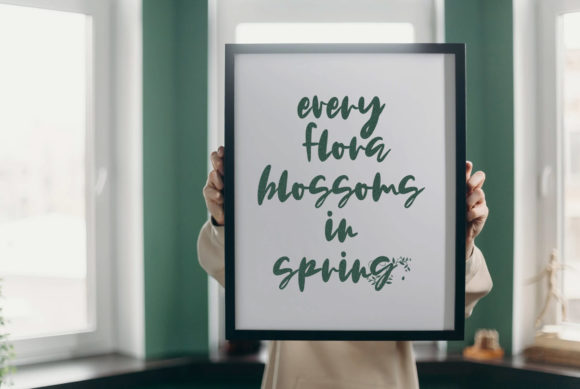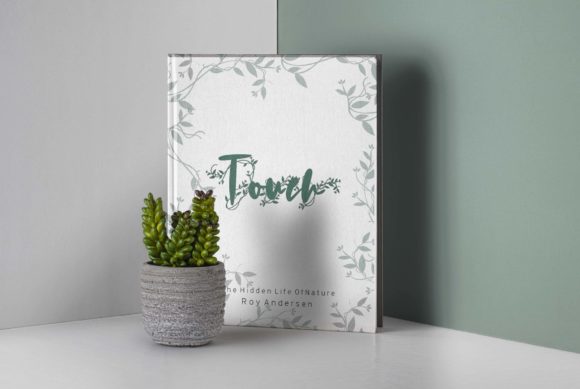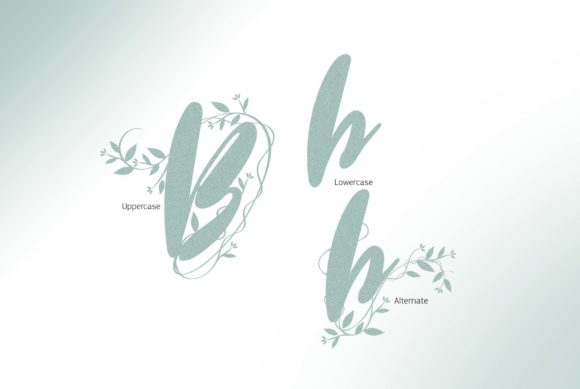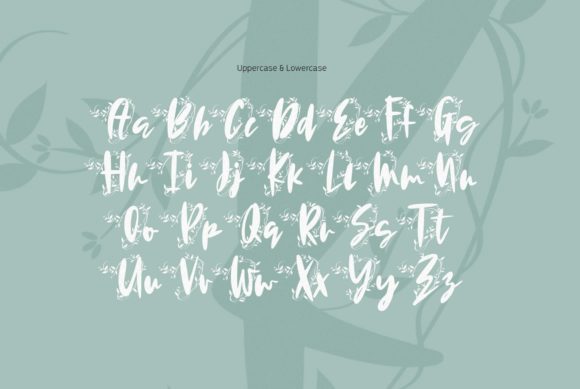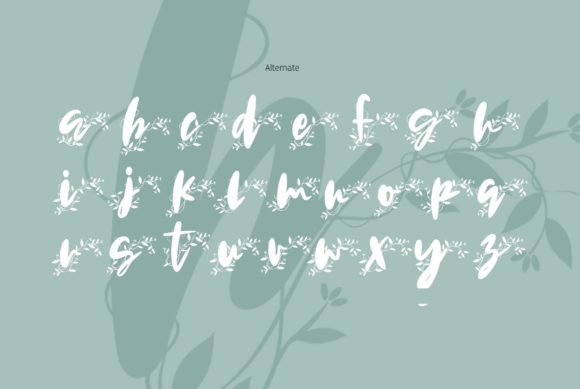
The Sweet Allure of Flora Font
Have you ever sat in front of your computer, surrounded by blank pages and endless design possibilities, and felt a sudden rush of inspiration? Maybe it’s the smell of freshly brewed coffee, or the soft hum of the air conditioner, but whatever it is, it sparks something within you, and suddenly you’re envisioning a beautiful design that will leave everyone in awe.
It’s moments like these that remind us why we love being designers. And for those of us who are always on the lookout for the perfect font to bring our visions to life, we’re excited to introduce you to Flora Font – a cute, natural, and incredibly sweet display font that’s sure to capture your heart. With its versatility and PUA encoding, Flora Font is a valuable addition to any designer’s toolkit.
Whether you’re working on a wedding invitation, a children’s book, or a social media campaign, Flora Font is the perfect choice to add a touch of whimsy and personality to your designs.
Flora Font Key Features
- Font Family: A beautiful, elegant script font, perfect for floral and feminine designs.
- Character Set: Includes uppercase and lowercase letters, numbers, and punctuation marks, as well as various ligatures and swashes.
- Unique Characteristics: Features intricate details, organic curves, and a delicate touch, giving it a unique and romantic feel.
Flora Font Review
I recently had the chance to work with the Flora Font, and I must say it’s a beautiful script font that’s perfect for adding a touch of elegance to your designs. ✨ Here are some things that work well:
- Delicate lines and subtle flourishes create a charming, hand-written feel.
- The font is highly customizable, with a wide range of weights and styles to choose from.
- Perfect for use in invitations, wedding stationery, and other creative projects.
However, there are a few limitations to keep in mind:
- May not be the best choice for large blocks of text, as the lines can become a bit blurry.
- The font is not ideal for digital use, such as in mobile apps or video games, due to its cursive nature.
- Some characters may not render correctly in certain fonts or operating systems.
Overall, I’m really impressed with the Flora Font. It’s a great choice for designers who want to add a touch of sophistication and whimsy to their projects. While it may have a few limitations, the benefits far outweigh the drawbacks. ✨
I would highly recommend the Flora Font to anyone looking for a beautiful script font for their designs. With a little care and attention, it’s sure to become a favorite in your design arsenal.
Tips for Getting the Most Out of Flora Font
Here are some tips to help you get the most out of Flora Font:
- Experiment with different font sizes and colors to achieve the desired effect.
- Use Flora Font in combination with other decorative fonts to create a unique and eye-catching design.
- Flora Font works particularly well in floral-themed designs, wedding invitations, and baby shower invitations.
Flora Font is commonly used in the following design projects:
Alternatives to Flora Font
Playfair Display is a luxurious and elegant font ideal for high-end branding and sophisticated designs. It features intricate details and ornate flourishes, making it perfect for use in titles, headings, and other prominent text elements.
Compared to Flora Font, Playfair Display is more ornate and luxurious, with a greater emphasis on elegance and sophistication. While Flora Font is a more subtle and understated choice, Playfair Display is sure to make a statement.